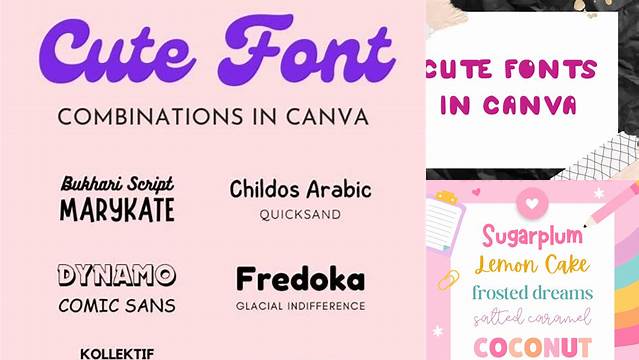
Adorable Canva Fonts: Your Guide To Cute Typography
Hey guys! Ever wondered how to make your Canva designs extra sweet and captivating? The secret weapon is often right at your fingertips: fonts on Canva cute! Choosing the right font can transform a simple design into something truly special, and when you're aiming for 'cute,' the options are deliciously abundant. In this guide, we're diving deep into the world of adorable Canva fonts, exploring various styles, and giving you tips on how to use them effectively. We'll cover everything from bubbly scripts to charming sans-serifs, ensuring your designs have that irresistible 'aww' factor. So, grab your design tools and let's get started on a font adventure that'll make your creations stand out from the crowd! Let's transform your digital canvases into delightful displays that are bound to make your audience smile. Selecting the right fonts is an art form, it speaks volumes about your design's personality and can significantly impact how it's perceived. Choosing fonts on Canva cute that are the right fit for your design can amplify its charm and create a unique sense of character. Let's embark on a fun and educational journey through the world of typography.
Choosing the Perfect Cute Font: Key Considerations
Alright, let's talk about how to pick the absolute cutest fonts on Canva! It's not just about picking something that looks nice; there are several key considerations to keep in mind. First off, think about your audience. Who are you trying to reach? Are you designing for kids, teenagers, or a more general audience? The answer to this question will heavily influence your font choices. For instance, if you're designing for children, playful, handwritten fonts might be a great fit. If you are aiming for a slightly older audience, consider the personality you want to reflect in your design. Secondly, think about your project's purpose. What message do you want to convey? If you're creating a design for a baby shower, a soft, rounded font could be ideal. If it is a design for an invitation to a kid's birthday party, then bold fonts can make it super fun. Think about the overall vibe and message. Thirdly, make sure your chosen fonts are readable. A cute font is useless if people can't easily understand what it says. Balance the aesthetic appeal with practicality. Try testing your fonts on different backgrounds and in various sizes to ensure readability. Consider the font pairing – how will this font interact with other fonts in your design? When it comes to fonts on Canva cute, compatibility is also super important. A bubbly font might look great with a clean, sans-serif font for headings, but it might clash with something too elaborate. Experiment, and find the right balance!
Font Styles That Scream 'Cute'
Okay, let's get down to the fun part – exploring the different font styles that scream 'cute'! Canva offers a wide range of options, each with its unique charm. Firstly, consider the script fonts. These fonts often mimic handwriting, giving your design a personal and friendly touch. They're perfect for invitations, greeting cards, or anything that calls for a touch of elegance and whimsy. Then, you have the rounded sans-serif fonts. These fonts are modern, clean, and friendly, with a touch of playfulness. They're versatile and work well in various contexts, from headings to body text. Bubbly and playful fonts are also worth checking out. These fonts are designed to be eye-catching and fun, often featuring exaggerated curves and shapes. They're perfect for designs aimed at kids or anyone who appreciates a dose of cheerfulness. When considering fonts on Canva cute, think about the font's personality. Does it have a playful, energetic vibe, or is it more calm and relaxed? Remember, it is also essential to choose fonts that align with your brand's overall style. Do you want to establish a fun or serious tone? Script fonts can give designs a handcrafted feel, while rounded fonts can add a modern touch.
Using Cute Fonts: Dos and Don'ts
Now that you know how to choose your fonts, let's talk about using them effectively. There are some key dos and don'ts to keep in mind to make sure your designs are as adorable as possible. First off, do keep it balanced. Using too many different fonts or styles can make your design look cluttered and unprofessional. Stick to two or three fonts at most, and make sure they complement each other. Next, do consider the context. Where will your design be seen? Is it for print or digital use? This will influence your font choices and how you use them. A font that looks great on a website might not be ideal for a printed poster. When using fonts on Canva cute, balance is everything. Choose fonts that work together, and don't be afraid to try a different combination of fonts to see which looks best. Don't overuse cute fonts. Too much cuteness can be overwhelming. Use these fonts sparingly, saving them for headlines, key phrases, or accent elements. Don't forget about readability. Make sure your text is easy to read, even at a distance or on a small screen. Avoid fonts that are too thin, elaborate, or stylized if readability is a concern.
Exploring Canva's Cutest Font Categories
Let's dive into some of Canva's font categories to pinpoint the styles perfect for adding that 'cute' touch. Canva’s extensive font library makes it easy to find the fonts that match your brand and theme, and choosing the right one can really set your design apart. Keep in mind that the font choice can make or break your overall design. There's an extensive variety of options; by the way, these fonts are available for free. Let's dig in:
Handwritten Fonts for a Personal Touch
Handwritten fonts bring a sense of intimacy and warmth, as if a personal note or a hand-drawn element is added. These fonts mimic the look of real handwriting, giving your designs a personal and friendly feel. They're perfect for invitations, greeting cards, or any design needing a touch of elegance and a personal style. Handwritten fonts can add a unique character to your work. When exploring fonts on Canva cute, consider those that have a natural, slightly imperfect quality. These small details can make the font feel more authentic and inviting. Also, make sure the chosen font complements your design's overall style. For a modern and minimalist feel, a simple handwritten font is ideal. For something more elegant, opt for a cursive script. Make sure it's legible to make sure your message is delivered and understood properly.
Bubbly and Playful Fonts for Joyful Designs
Bubbly and playful fonts are all about fun and energy, perfect for designs that need to bring joy and excitement. With their round, exaggerated curves and shapes, these fonts catch the eye and create an instant sense of cheerfulness. They are ideal for projects aimed at kids or anyone who loves a lighthearted aesthetic. Consider playful fonts for children's birthday invitations, social media graphics, or any design where you want to create a fun and engaging experience. Remember to use these fonts in moderation so that they don't overwhelm your design. Pairing a bold, bubbly headline with a more straightforward, sans-serif font for the body text can strike the right balance. When it comes to fonts on Canva cute, bubbly fonts bring a big dose of fun.
Rounded Sans-Serif Fonts: Modern and Friendly
Rounded sans-serif fonts are the epitome of modern friendliness, offering a clean, approachable look. They combine the clean lines of sans-serif fonts with rounded edges, resulting in a soft, inviting appearance. These fonts are versatile and can be used in various contexts, from headings to body text, websites to print materials. They strike a balance between contemporary design and a welcoming feel, making them ideal for businesses that want to project a friendly image. Consider these fonts for your branding, social media posts, or any design that calls for a modern and accessible design. Remember that using fonts on Canva cute offers a range of options for your design. A good font choice can enhance both readability and visual appeal. To achieve the best outcome, take the time to explore several possibilities.
Script Fonts: Adding Elegance and Whimsy
Script fonts bring elegance and a touch of whimsy to your designs, imitating elegant handwriting with a charming, personalized feel. They are perfect for projects that need a delicate and sophisticated touch, like invitations, wedding cards, or any design seeking a sense of refinement. Keep in mind that script fonts often require some care to use well. Make sure that you are creating the desired look and that they are readable, especially when used for large blocks of text. When selecting fonts on Canva cute, try out script fonts. Select a font that suits the overall tone of your design. Elegant script fonts can create a sense of luxury, while more casual scripts are suitable for a more friendly or relaxed look.
Font Pairing: Creating Harmonious Designs
Font pairing is the art of combining different fonts to create a cohesive and balanced design. Effective font pairing can significantly improve the visual appeal and readability of your designs. When choosing fonts, focus on creating a balance between the fonts' different characteristics. For example, a bold font can be paired with a lighter font to create contrast. Also, consider the readability of your chosen font. Ensure that fonts are easy to read and complement each other, especially when used in combination. In addition, when it comes to fonts on Canva cute, you can play around with different font combinations to see which ones look best together. Pairing a playful font with a clean, sans-serif font for the headings can create a look that is both fun and easy to read.
The Importance of Consistency in Branding
Consistency is important for branding and brand recognition. Consistent use of fonts in all your designs will help create a recognizable brand identity. Your fonts are a key visual element. For best results, use the same fonts consistently across all your designs. Consistent branding helps to build a strong brand identity. When you consider fonts on Canva cute, use a consistent branding strategy.